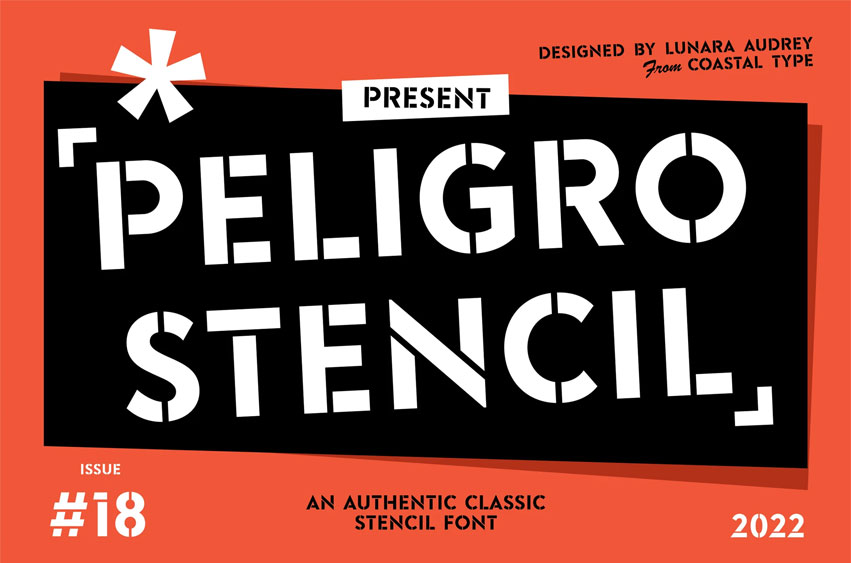
Peligro Stencil Font
Peligro Stencil Font is a tough headliner font.
Peligro Stencil is perfect for police, sports, prison, construction, school or military themes.